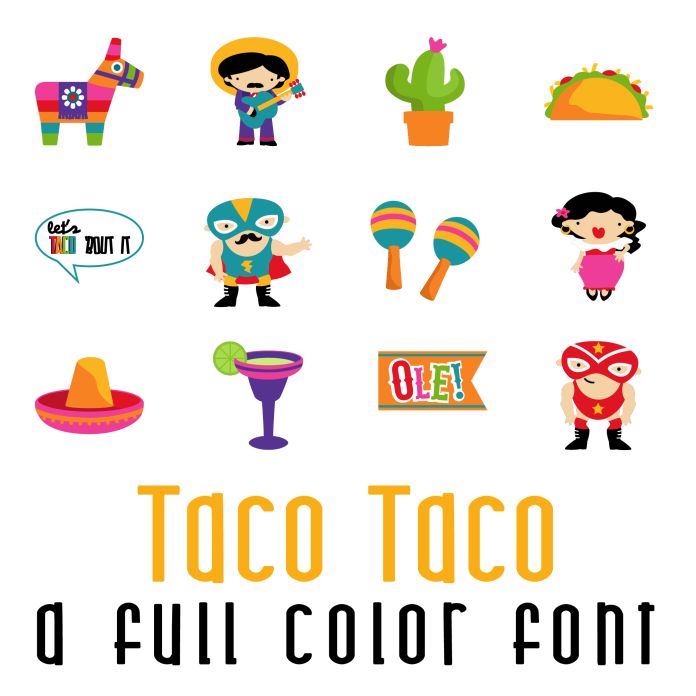
Taco Taco Full Color Font is a vibrant and festive font design perfect for Cinco de Mayo celebrations, parties, and events. This unique font features 26 bold, colorful letters inspired by traditional Mexican cuisine and culture. Add a fun and playful touch to your designs with this eye-catching font.